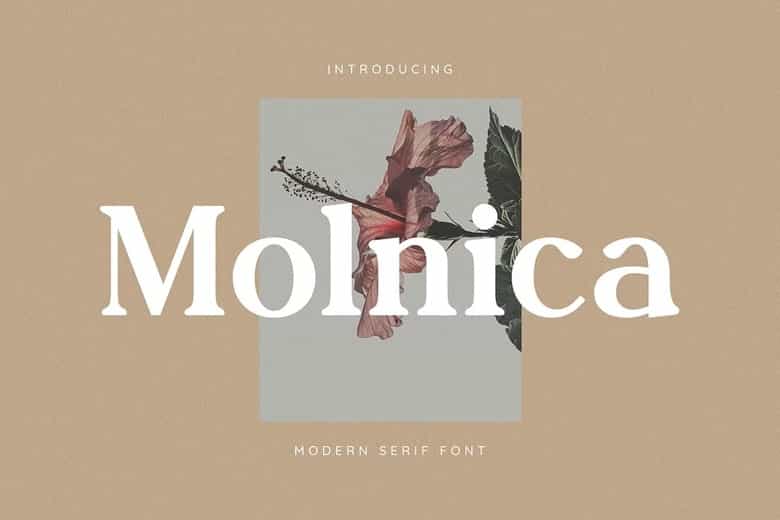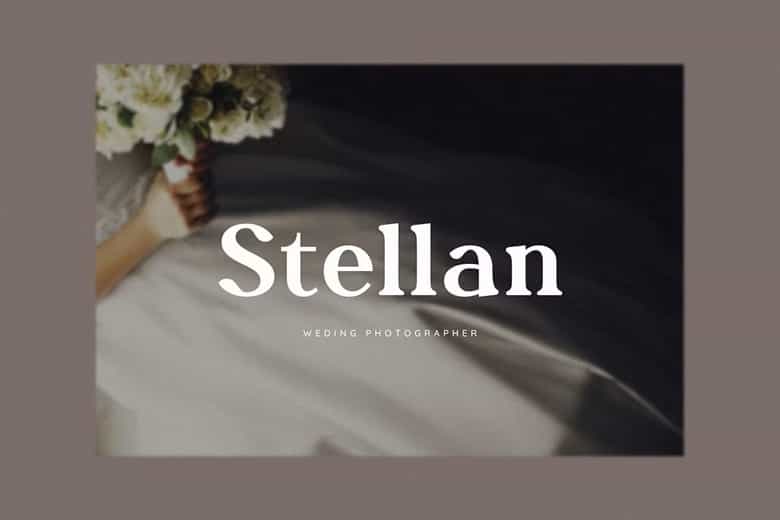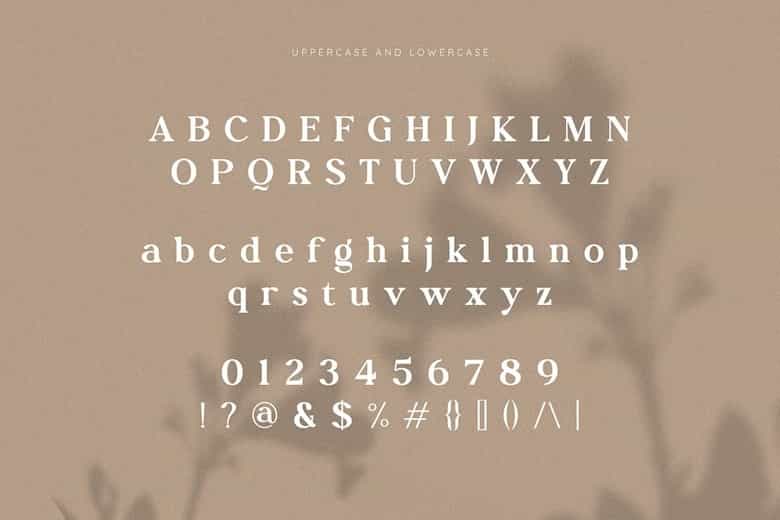
Molnica is a new serif font that harmonizes bold character with delicate, fluid curves. Crafted for contemporary elegance, Molnica is an ideal choice for brands, creatives, and designers seeking to lend a touch of luxury and refinement to their work.